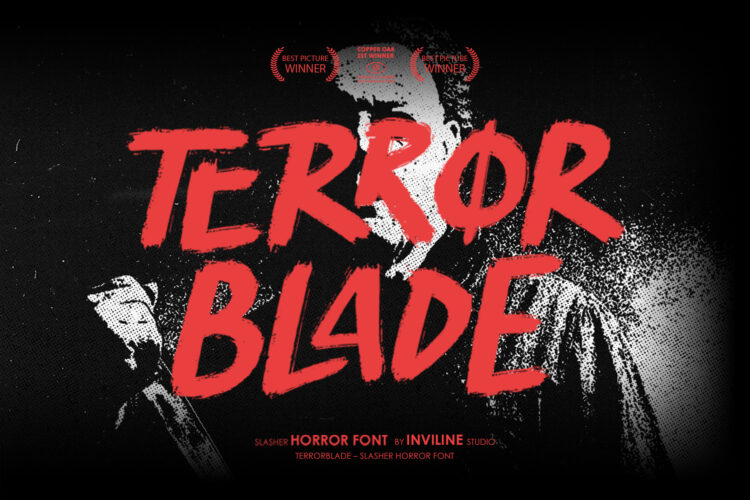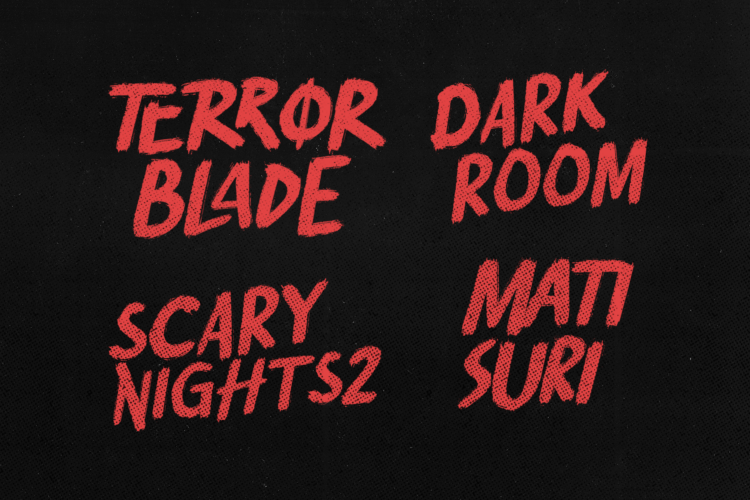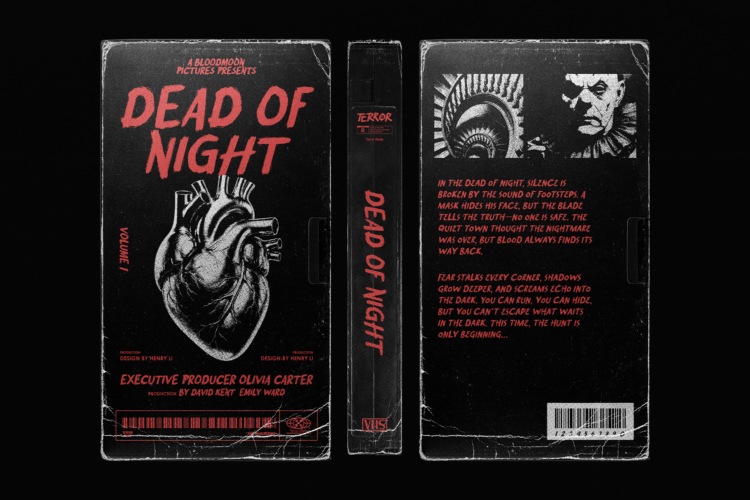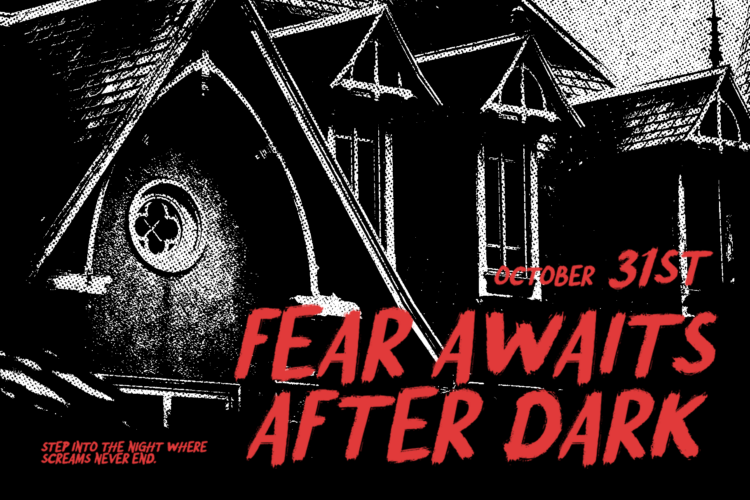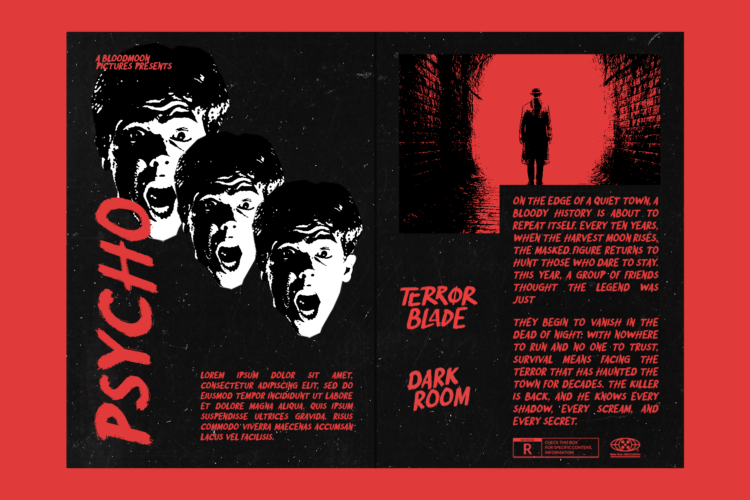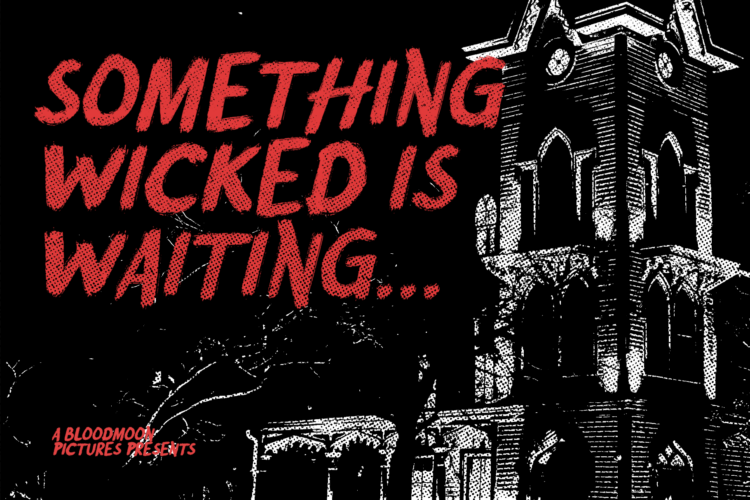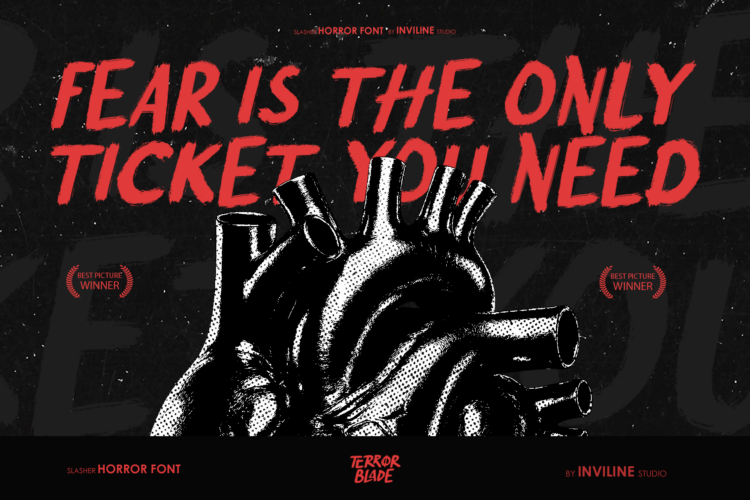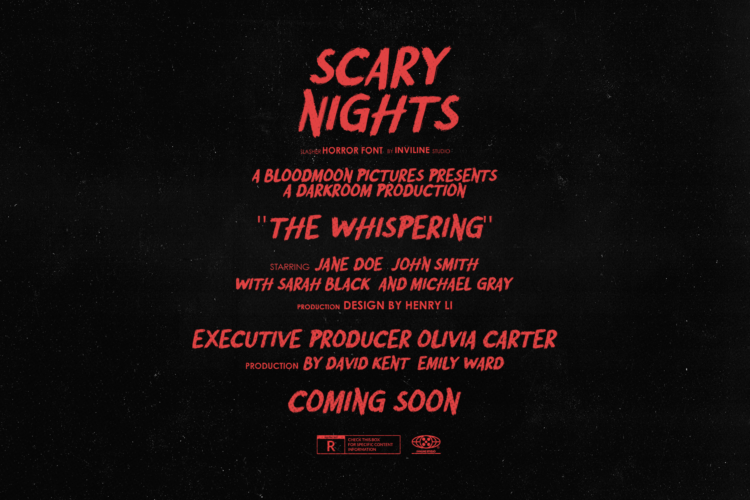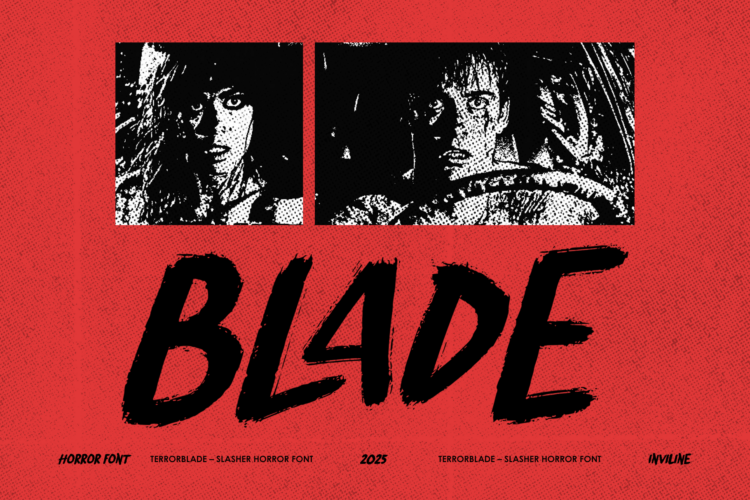
TERROR BLADE – Brush Horror Font
TERROR BLADE is a slasher-inspired horror font with raw, hand-brushed energy. Crafted for filmmakers, designers, and creatives who love the thrill of the macabre, this typeface is your go-to for intense visuals and blood-curdling graphics. Inspired by 80s slasher films and cult horror posters, it brings an authentic scary vibe to any project.
The rough brush strokes and aggressive cuts make it perfect for movie titles, scream-fest flyers, Halloween event promos, spooky merch, and bold quotes. Terror Blade doesn’t whisper — it screams.
- All-uppercase letters
- Numbers, punctuation & special symbols
- Grunge horror brush texture
Perfect For:
- Horror movie titles
- Halloween posters & party invites
- Scary game titles
- Creepy merch & apparel
- Experimental visuals & scream queens